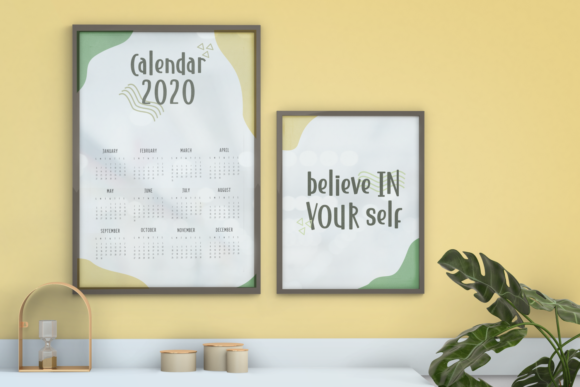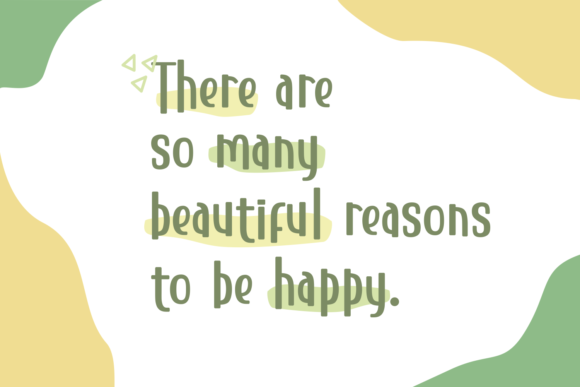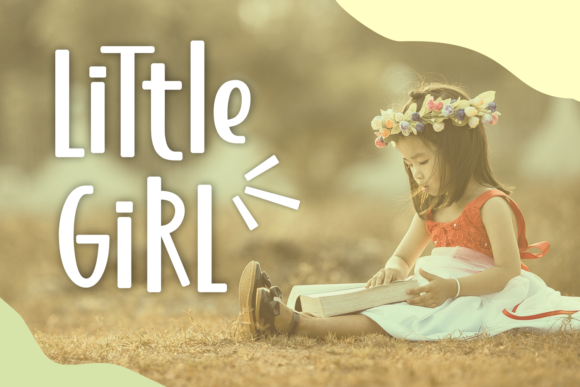
Introducing Bliga Font: The Cheerful and Down-to-Earth Display Font
Are you tired of using the same old fonts for your design projects? Look no further than Bliga Font, a cheerful and down-to-earth display font that’s sure to add a touch of personality to your work. Bliga is a carefully crafted font that boasts an incredibly organic feel, making it perfect for designers and crafters looking to add a unique touch to their projects.
The Characteristics of Bliga Font
Bliga Font is a display font that’s characterized by its handcrafted look and feel. Its letters are carefully designed to resemble those that have been painstakingly crafted by hand, giving the font an organic and natural feel. The font’s cheerful and down-to-earth vibe makes it perfect for a wide range of design projects, from branding and packaging to signage and advertising.
The Benefits of Using Bliga Font
So why should you choose Bliga Font for your next design project? Here are just a few benefits of using this versatile and charming font:
- Unique and eye-catching: Bliga Font is a one-of-a-kind font that’s sure to grab attention. Its handcrafted look and feel make it stand out from more traditional fonts, ensuring that your design project will be noticed.
- Versatile: Despite its unique character, Bliga Font is surprisingly versatile. It can be used for a wide range of design projects, from formal and professional to casual and playful.
- Easy to read: Despite its handcrafted look, Bliga Font is incredibly easy to read. This makes it perfect for use in body text, as well as for headlines and titles.
- Perfect for crafty projects: Bliga Font is a perfect fit for crafty projects, such as handmade cards, DIY signage, and other paper crafts.
Who is Bliga Font for?
Bliga Font is perfect for a wide range of designers and crafters, including:
- Graphic designers: Whether you’re working on a branding project, creating a logo, or designing a brochure, Bliga Font is a great choice.
- Paper crafters: If you love making handmade cards, gift tags, and other paper crafts, Bliga Font is a perfect fit.
- Sign makers: Whether you’re creating a sign for a business or a personal project, Bliga Font is sure to grab attention.
- Advertising professionals: If you’re looking for a font that’s sure to stand out in advertising materials, Bliga Font is a great choice.
How to Use Bliga Font
Using Bliga Font is easy. Here are a few tips to get you started:
- Pair it with a simple font: Bliga Font is a bold and eye-catching font, so it’s best paired with a simpler font for body text.
- Use it for headlines: Bliga Font is perfect for use in headlines and titles, where its unique character can really shine.
- Experiment with colors: Bliga Font looks great in a wide range of colors, so don’t be afraid to experiment and find the perfect hue for your project.
Bliga Font is a unique and versatile font that’s perfect for designers and crafters looking to add a touch of personality to their work. Its handcrafted look and feel make it stand out from more traditional fonts, while its ease of use and readability make it perfect for a wide range of design projects. Whether you’re a graphic designer, paper crafter, or advertising professional, Bliga Font is a great choice. So why not give it a try and see the difference it can make in your next design project?